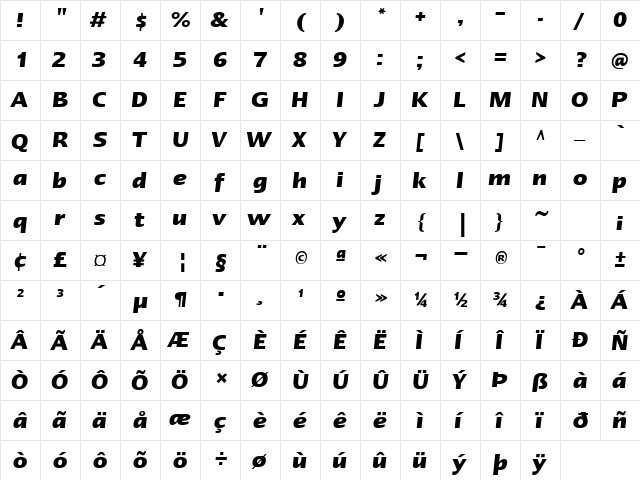
LTErgo Medium BoldItalic Font Preview
Design Context for LTErgo Medium Typeface
LTErgo Medium offers clean, dependable letterforms without strong stylistic allegiance, making it a practical choice for designers who need flexibility. The slanted form adds forward momentum and visual energy. The heavy weight commands attention and anchors typographic hierarchies.